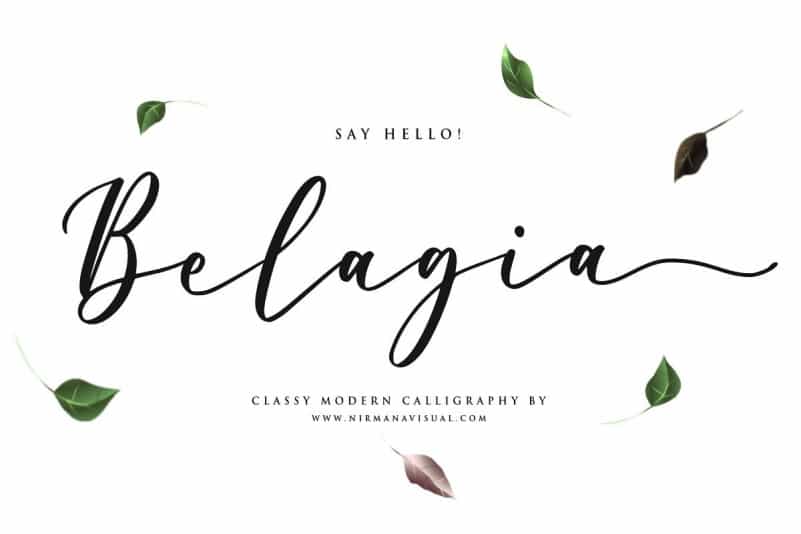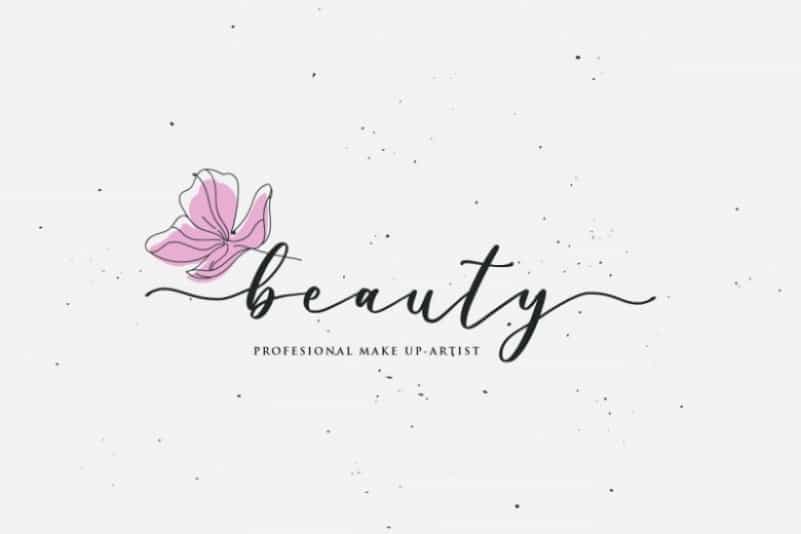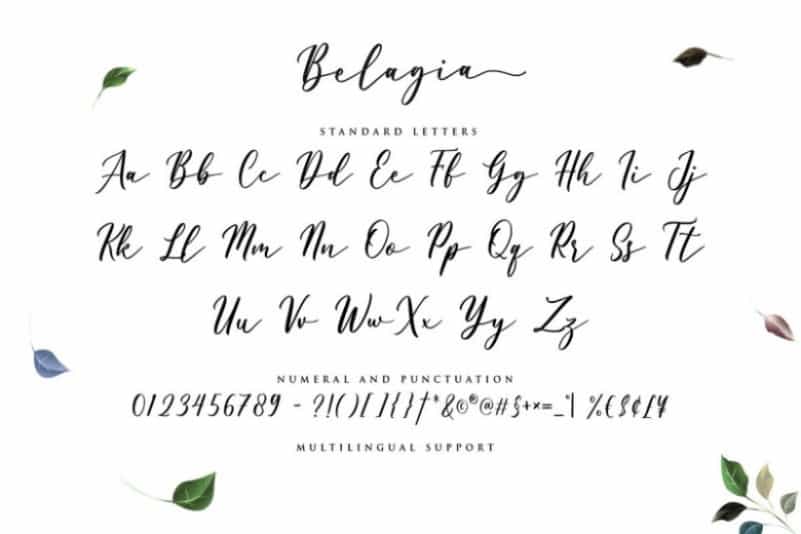
Belagia Font exudes elegance with its calligraphy style. Slim yet feminine it maintains a charm. This script font is elegantly designed with a hint of romance for that timeless touch of sophistication.